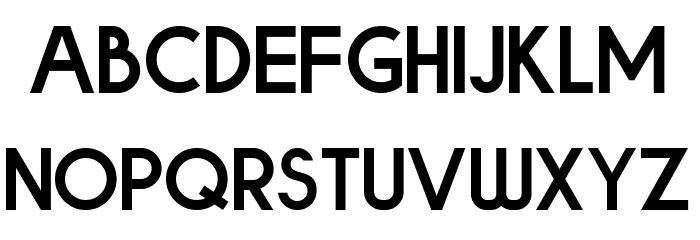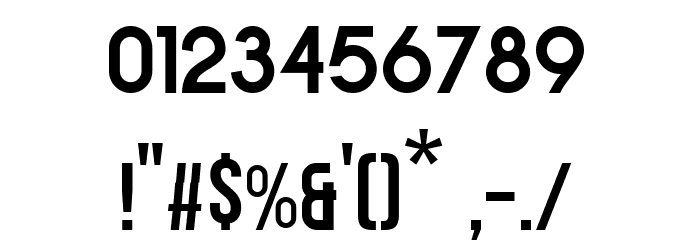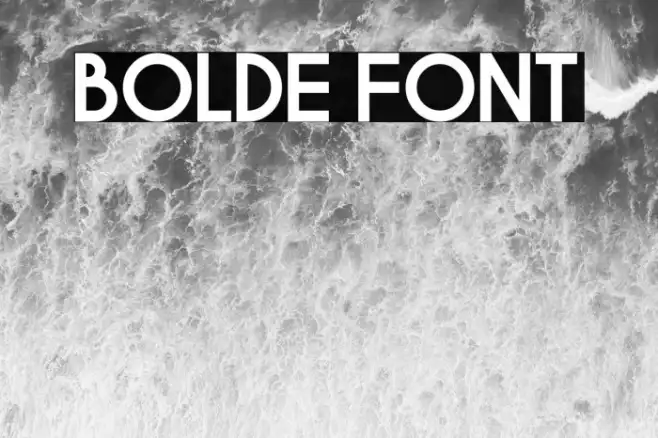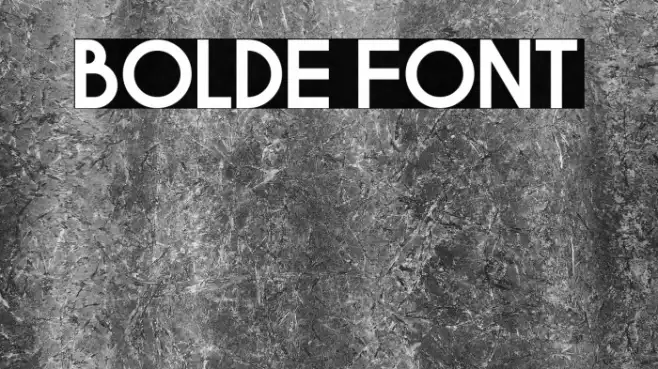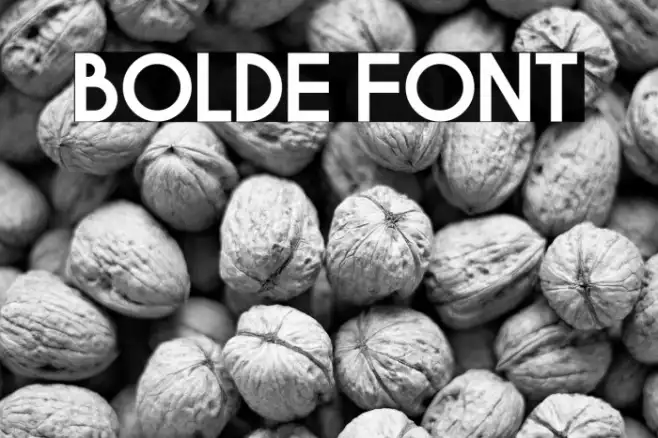
BOLDE Font
This font features a bold and modern sans-serif style, characterized by clean lines and a geometric structure. The uppercase letters are uniform in height, providing a strong and cohesive appearance. The numerals are equally bold, maintaining the font's overall consistency. Special characters are designed with the same boldness, ensuring they stand out effectively. The font's simplicity and clarity make it highly legible, suitable for various design applications where a strong visual impact is desired.
A bold, modern sans-serif font with clean lines and geometric structure.
- Proposed Projects: Ideal for branding, advertising, headlines, and digital content where a strong, modern look is needed.
- Use Case: Headlines, Logos, Branding